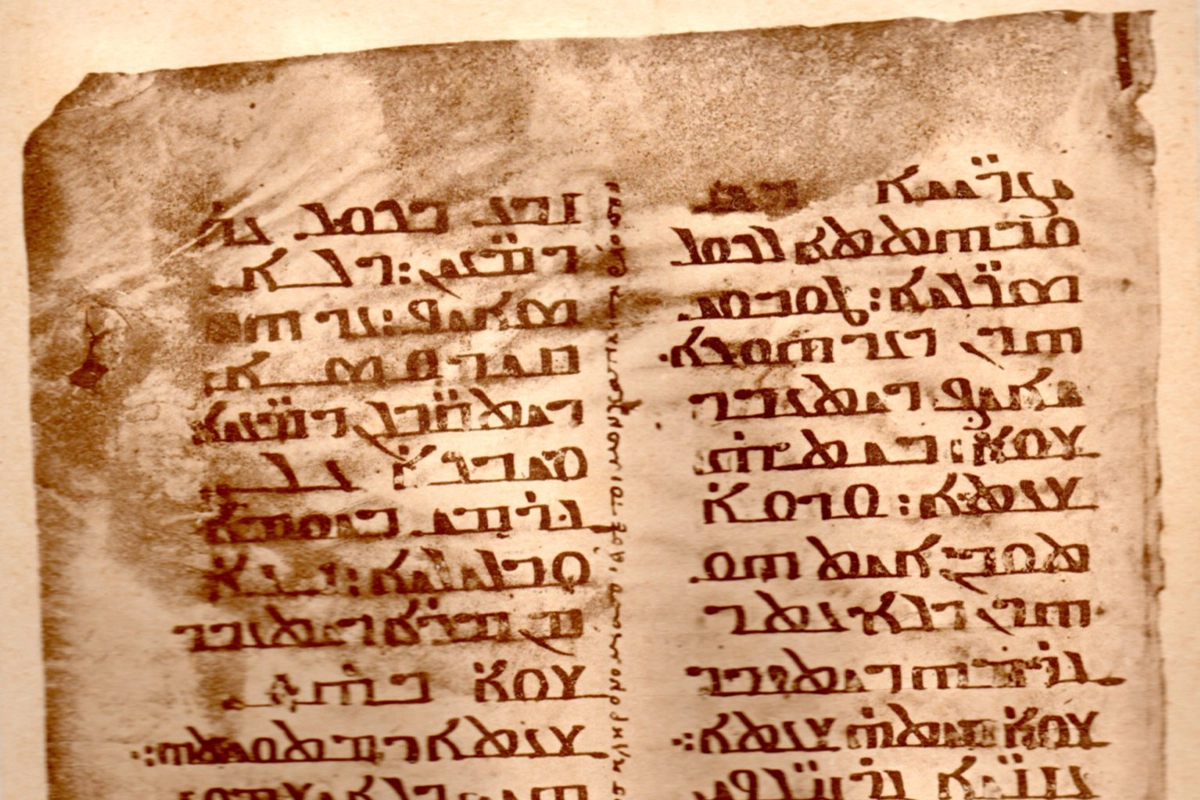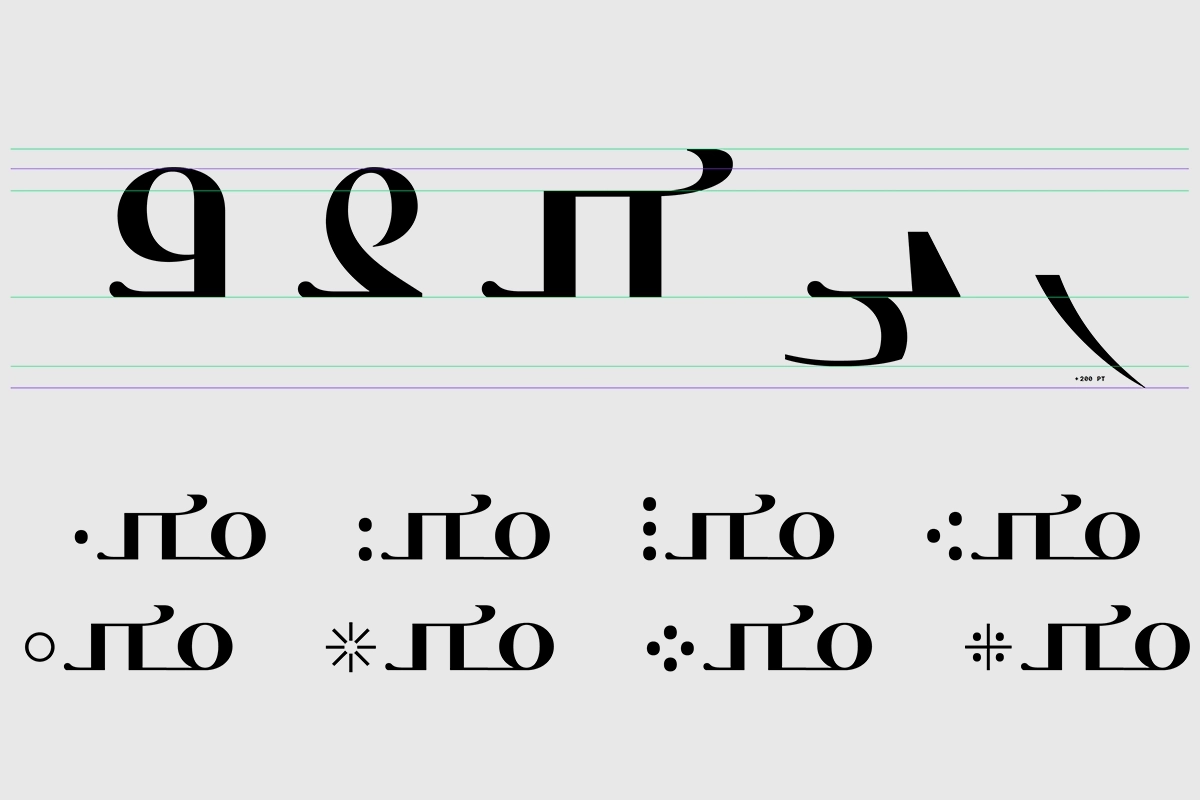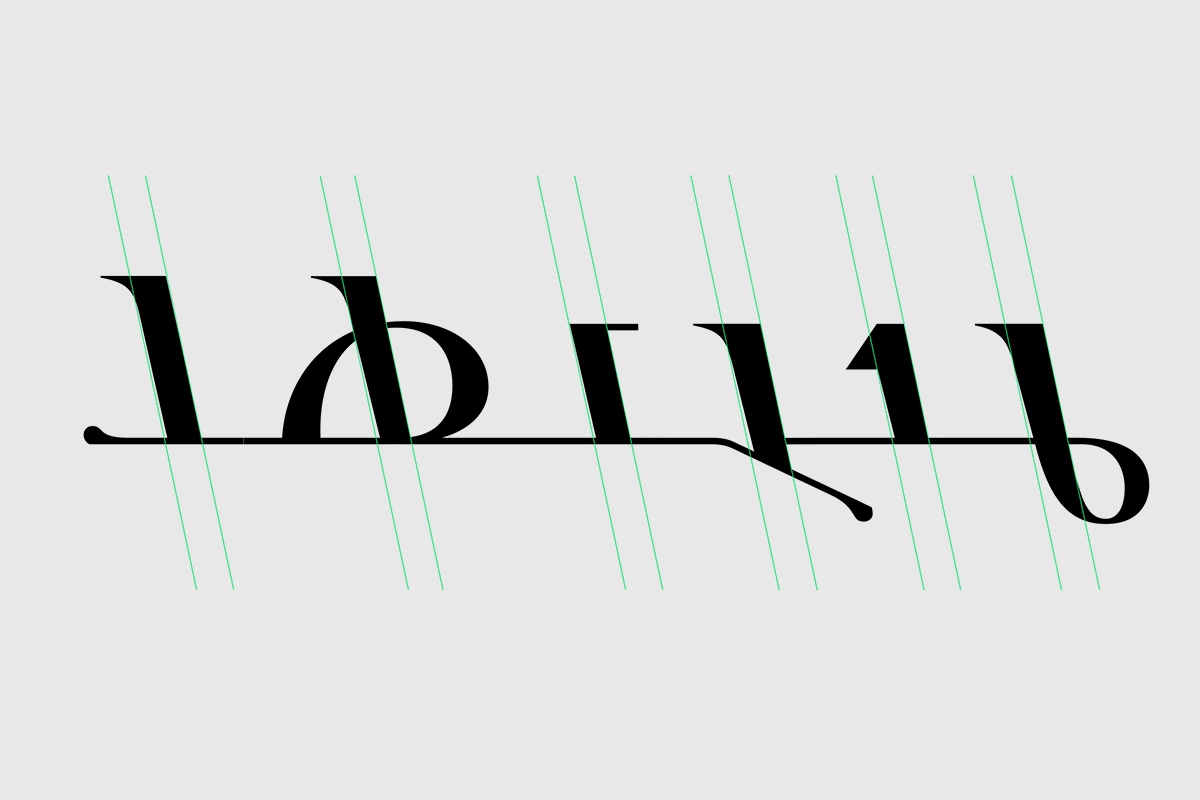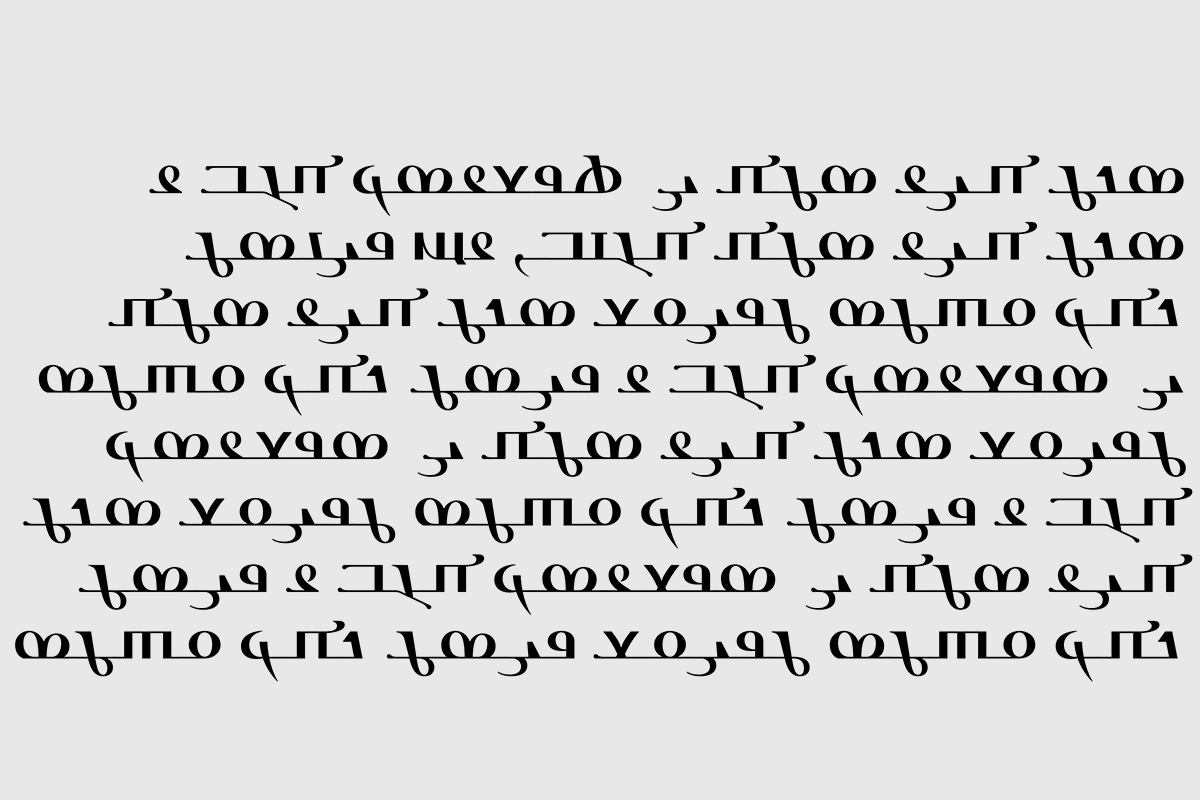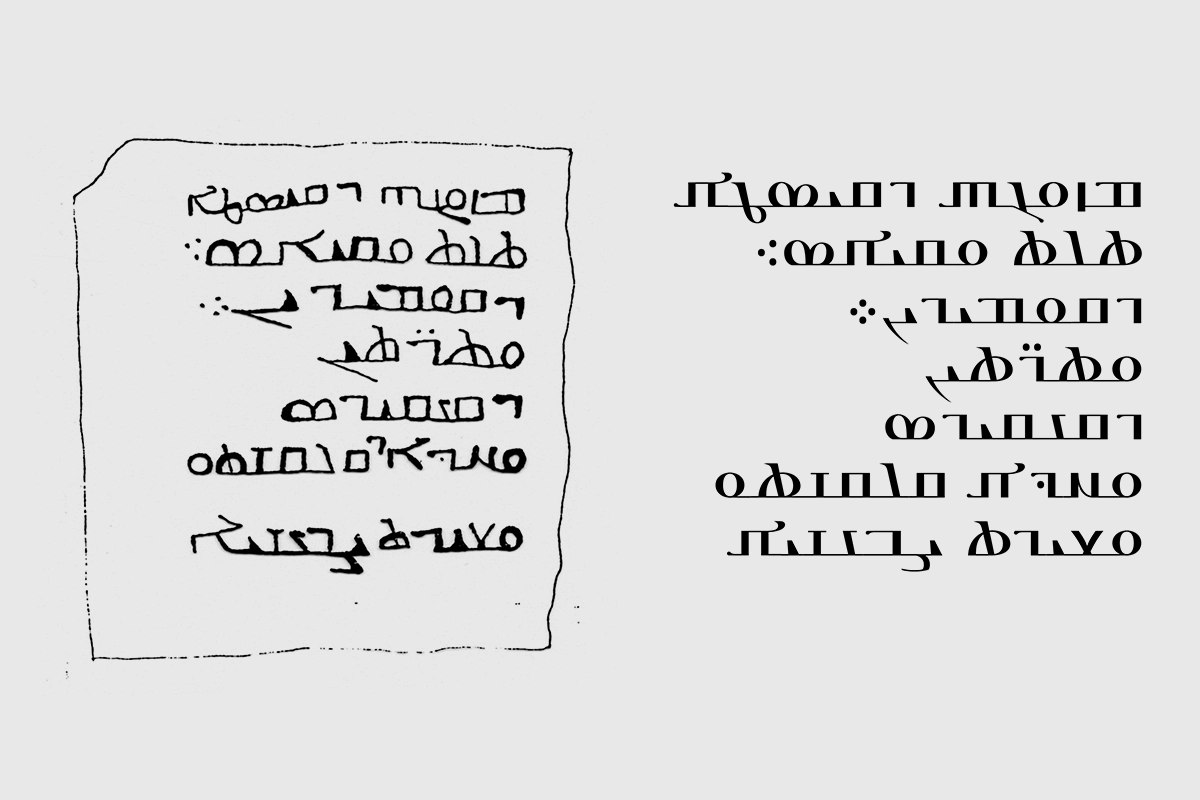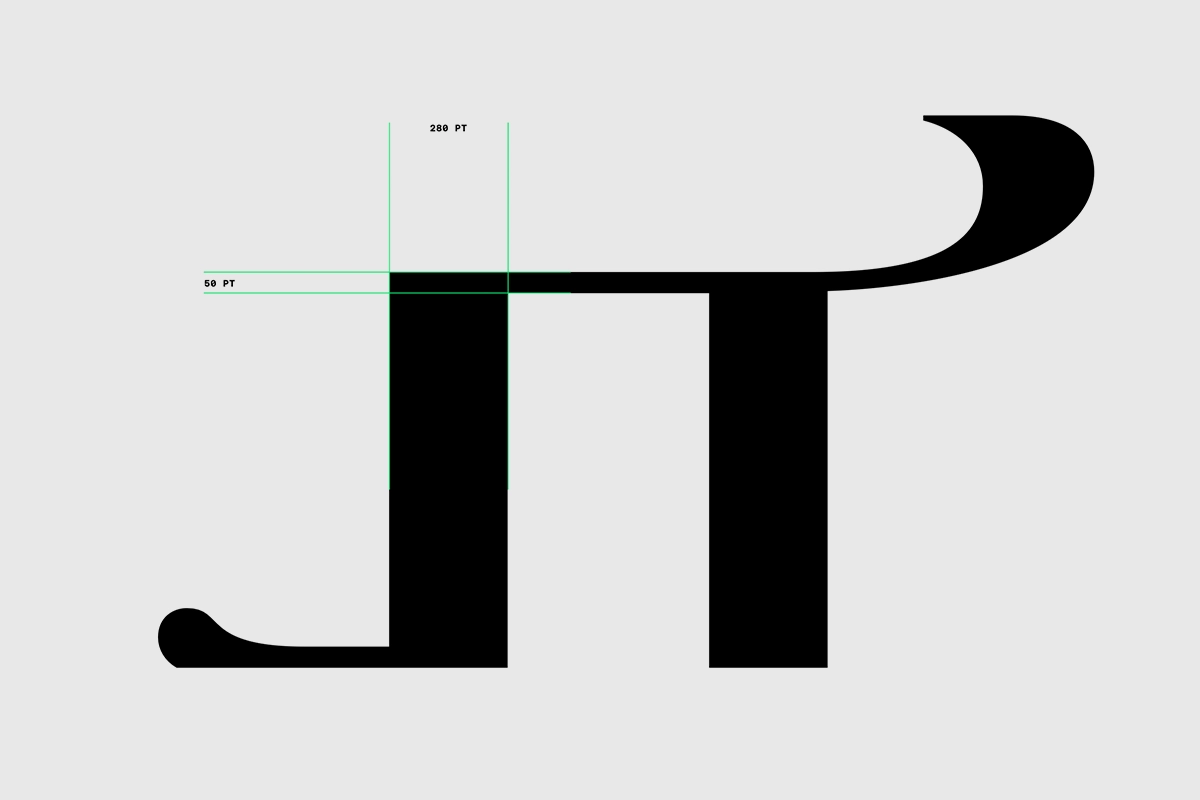
When Claire Clivaz (SIB Swiss Institute of Bioinformatics) and Alain Desreumaux (CNRS, Paris) set out to encode Christo-Palestinian Aramaic into the Unicode standard, they needed a typeface to go with it. We designed and vectorised the 40 characters of CPA-DM alongside the research team — each glyph drawn from historical manuscript sources and submitted as part of Unicode Technical Note no. 52.